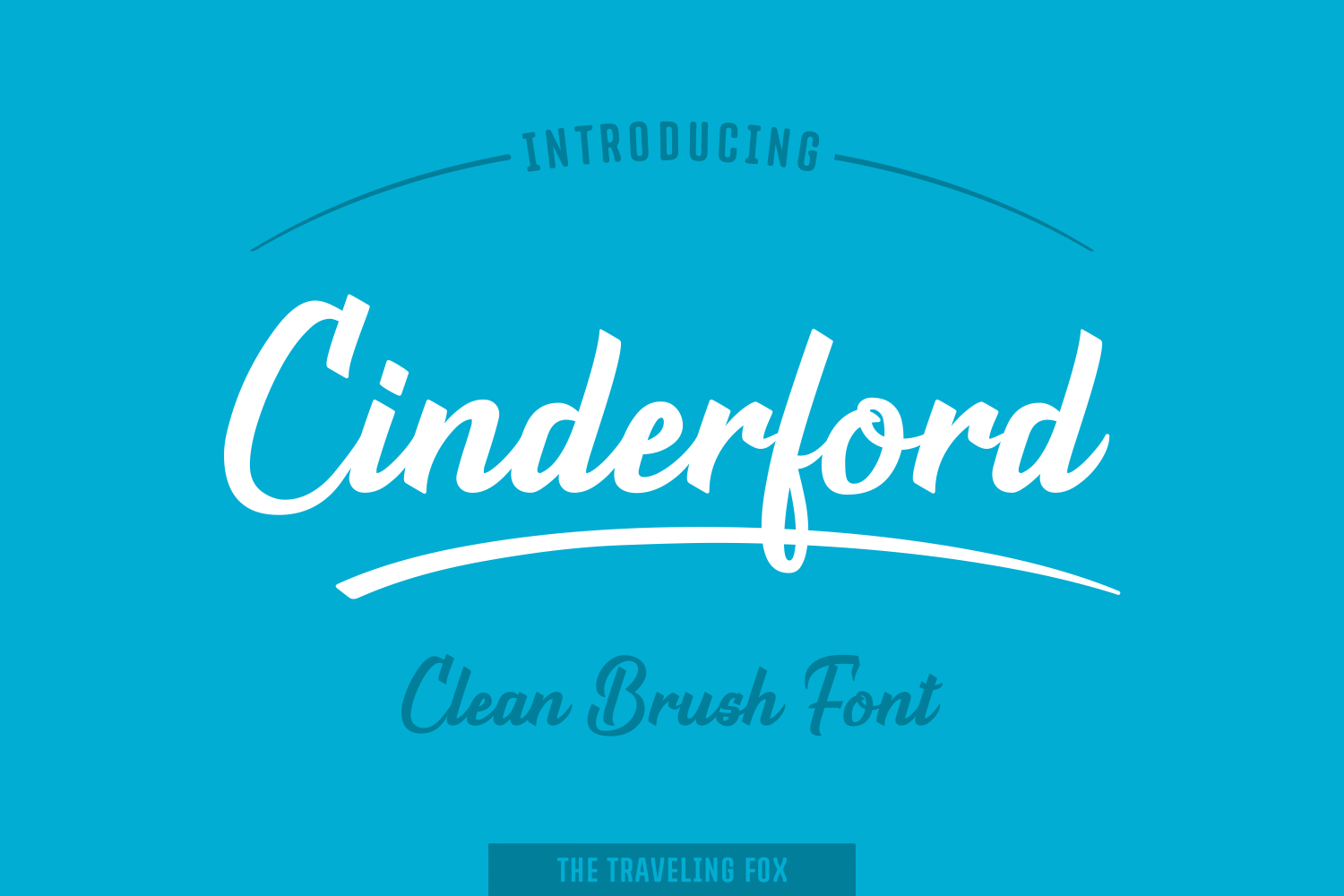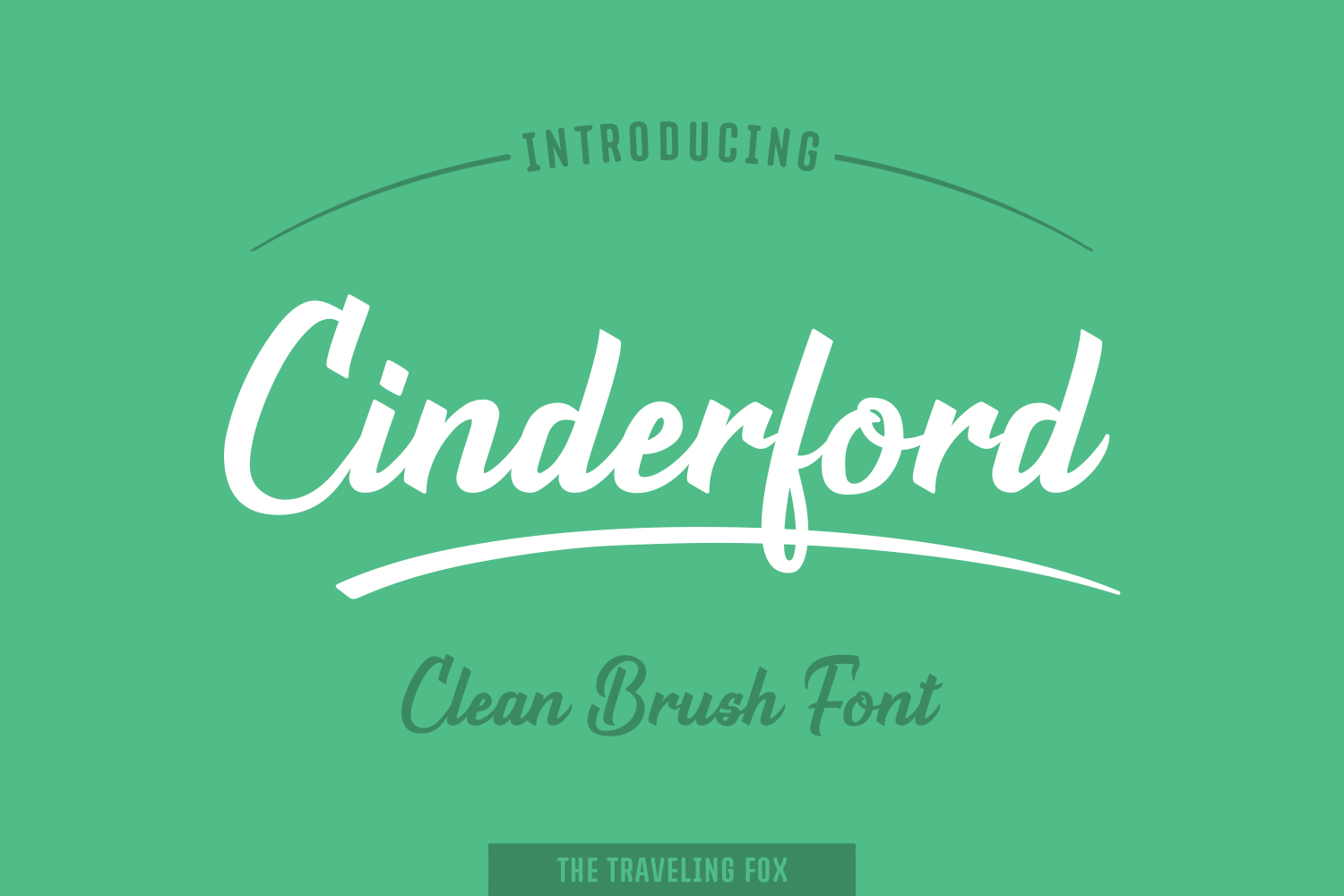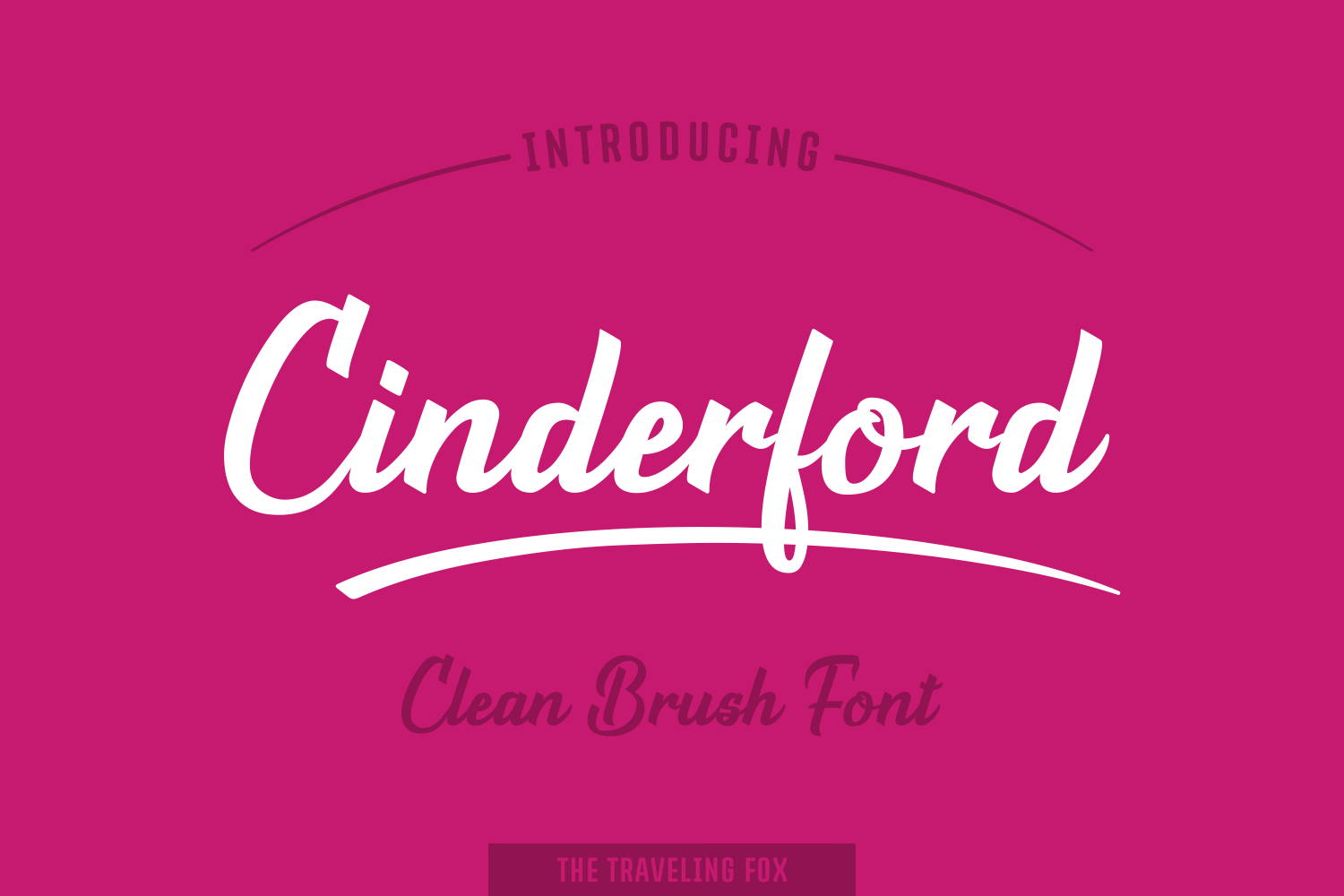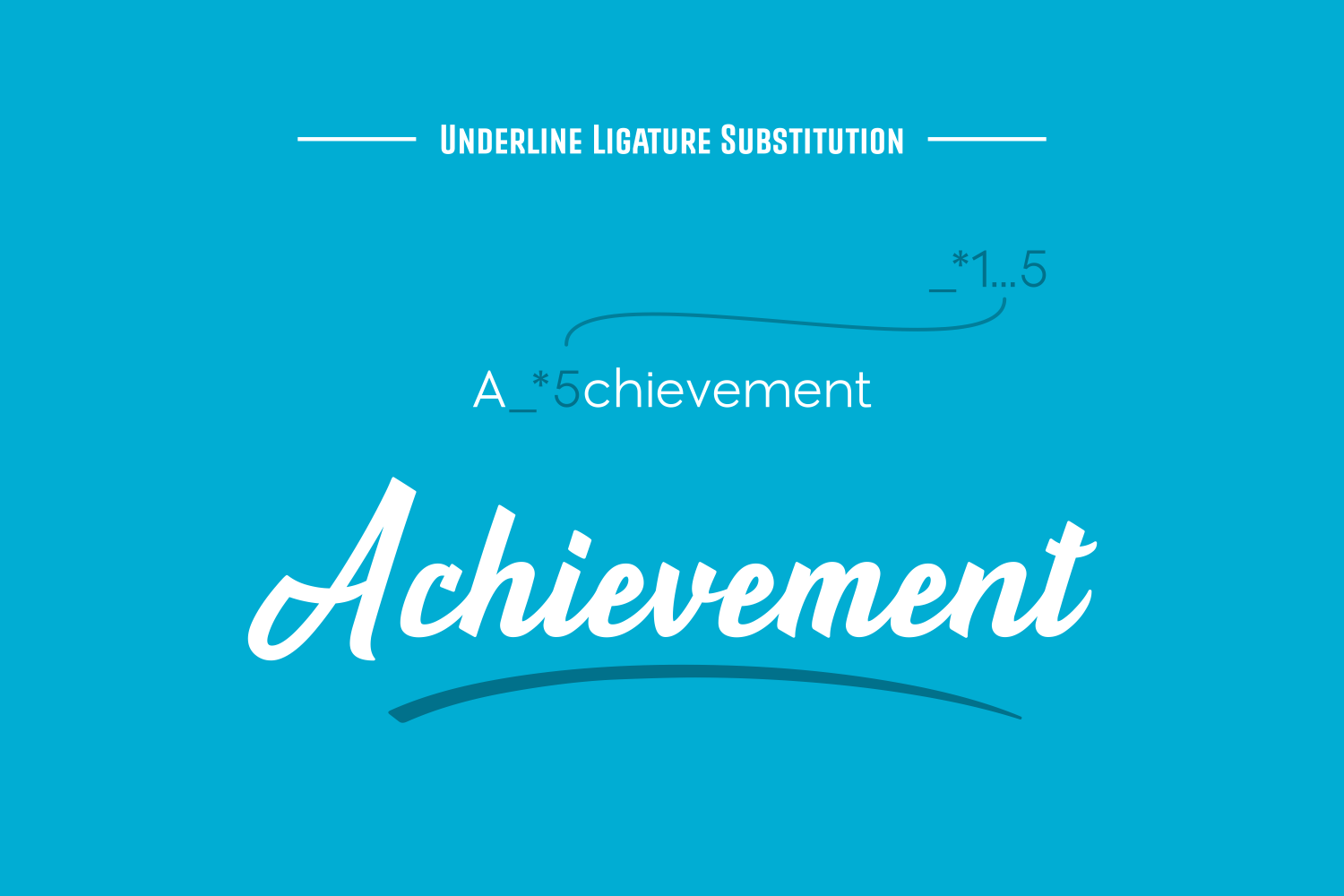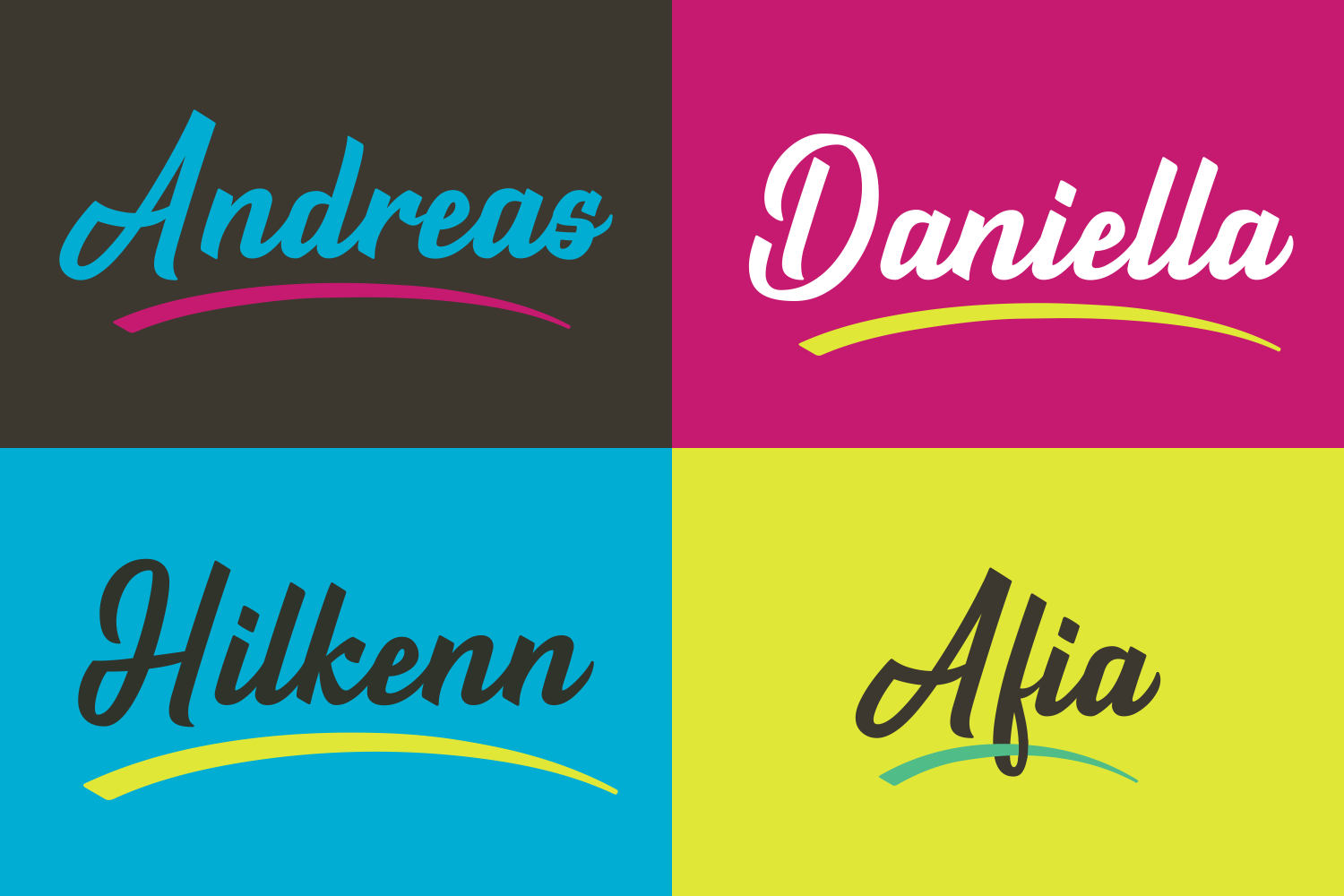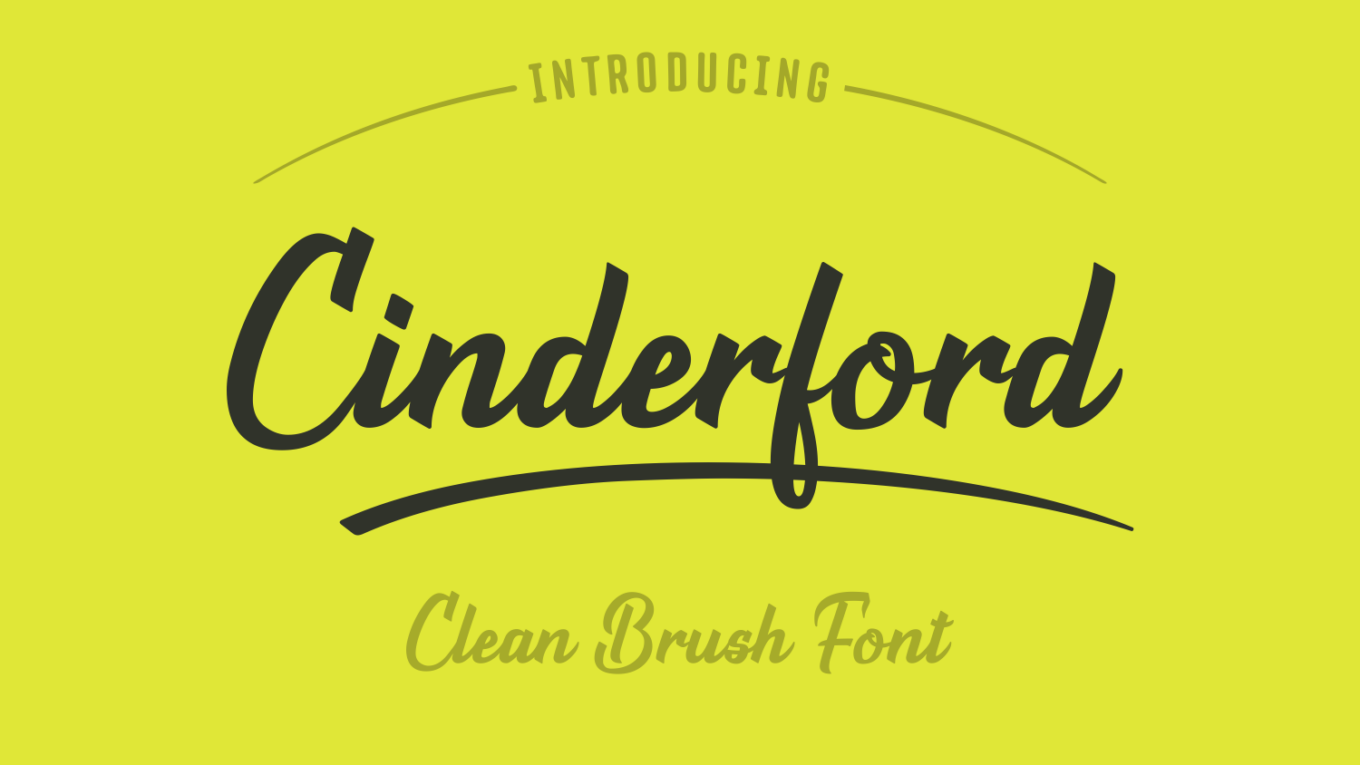
Cinderford Font: The Perfect Choice for Attention-Grabbing Displays
Are you tired of using the same old fonts for your designs? Look no further than Cinderford Font, a stunning and sporty script that’s sure to take your work to the next level. With its bold and squared edges, Cinderford is the perfect choice for attention-grabbing displays that will leave a lasting impression on your audience.
What is Cinderford Font?
Cinderford Font is a unique and modern script font that’s designed to make a statement. Its bold and squared edges give it a sporty feel that’s perfect for designs that need a bit of edge. Whether you’re working on a logo, a poster, or a social media graphic, Cinderford Font is sure to add a touch of personality and style to your work.
Key Features of Cinderford Font
- Bold and Sporty: Cinderford Font is designed to be bold and eye-catching, making it perfect for attention-grabbing displays.
- Squared Edges: The squared edges of Cinderford Font give it a sporty feel that’s perfect for designs that need a bit of edge.
- Script Style: Despite its bold and sporty feel, Cinderford Font is still a script font at heart, making it perfect for designs that need a touch of personality and style.
- Highly Versatile: Cinderford Font can be used for a wide range of designs, from logos and posters to social media graphics and more.
Why Choose Cinderford Font?
So why choose Cinderford Font for your designs? Here are just a few reasons why Cinderford Font is a great choice:
- Stand Out from the Crowd: With its bold and sporty feel, Cinderford Font is sure to help your designs stand out from the crowd.
- Add a Touch of Personality: Cinderford Font has a unique and playful feel that’s perfect for designs that need a touch of personality and style.
- Easy to Read: Despite its bold and sporty feel, Cinderford Font is still easy to read, making it perfect for designs that need to communicate a message.
- High-Quality Design: Cinderford Font is designed to high standards, ensuring that it looks great in any design.
How to Use Cinderford Font
Cinderford Font is easy to use and can be incorporated into a wide range of designs. Here are a few tips for using Cinderford Font:
- Use it as a Title Font: Cinderford Font is perfect for use as a title font, where its bold and sporty feel can really make an impact.
- Add it to Your Logo: Cinderford Font would make a great addition to any logo, adding a touch of personality and style to your brand.
- Use it in Social Media Graphics: Cinderford Font is perfect for use in social media graphics, where its bold and eye-catching feel can really help your message stand out.
| Font Name | Cinderford Font |
| Author | The Traveling Fox |
In conclusion, Cinderford Font is a stunning and sporty script font that’s perfect for attention-grabbing displays. With its bold and squared edges, Cinderford Font is sure to add a touch of personality and style to your designs. Whether you’re a designer, a crafter, or just someone who loves working with fonts, Cinderford Font is a great choice. So why not add Cinderford Font to your font collection today and start creating some amazing designs?